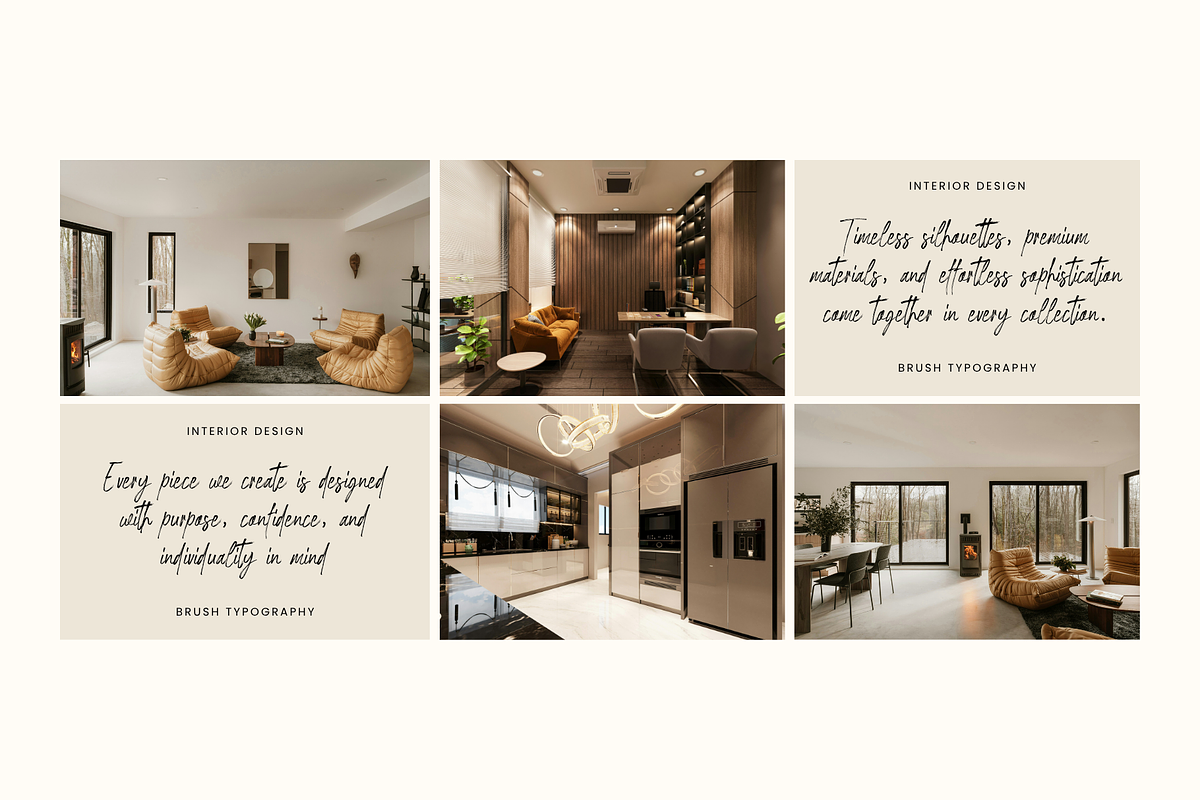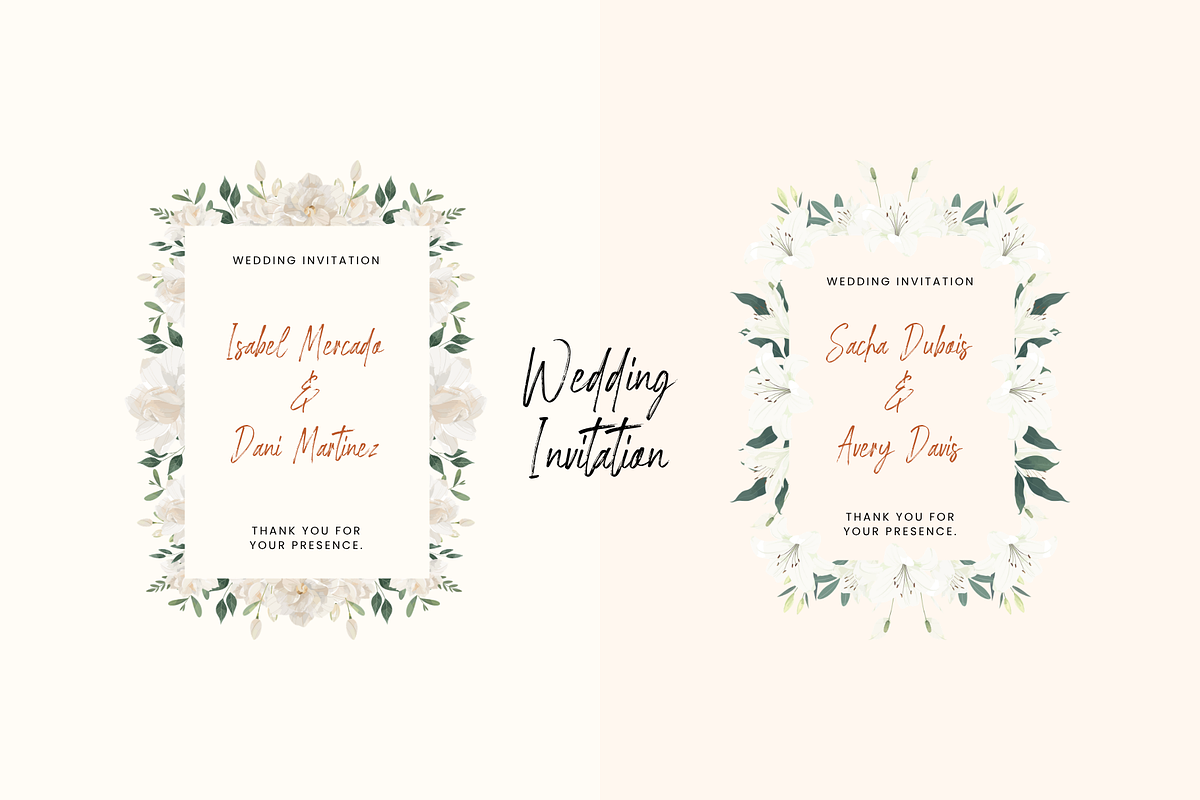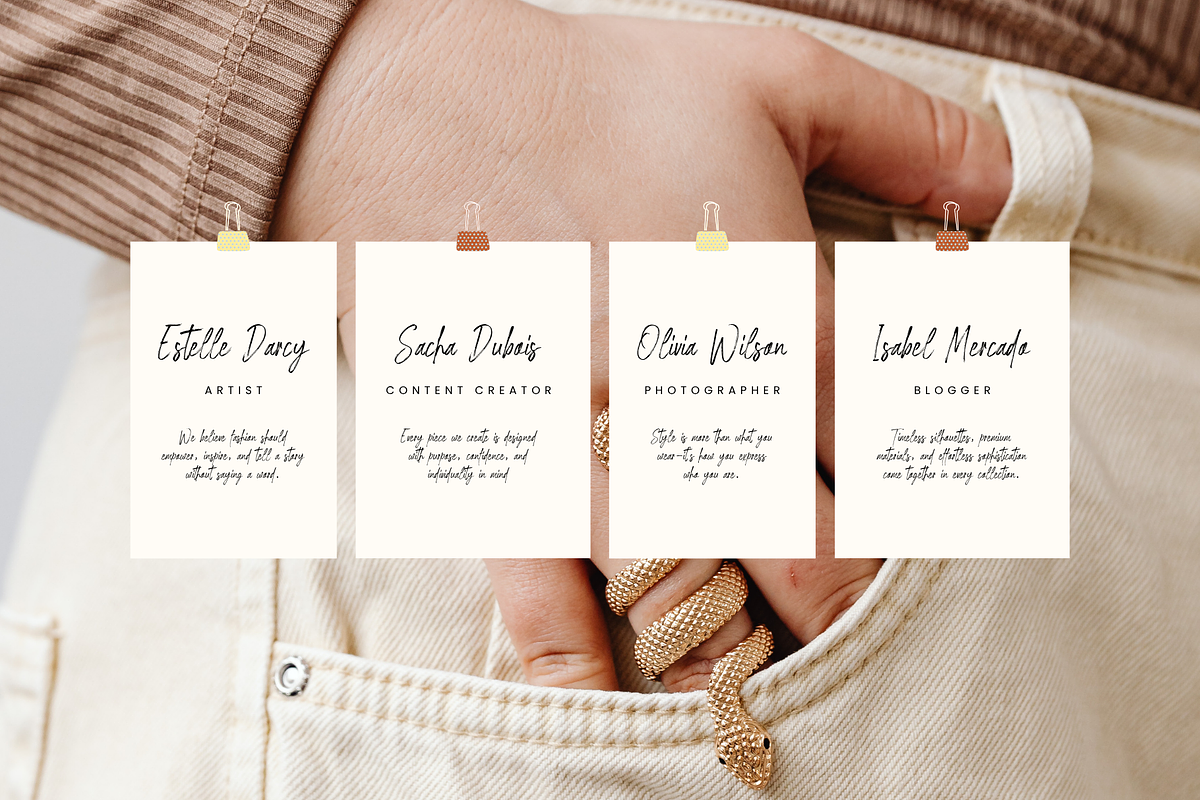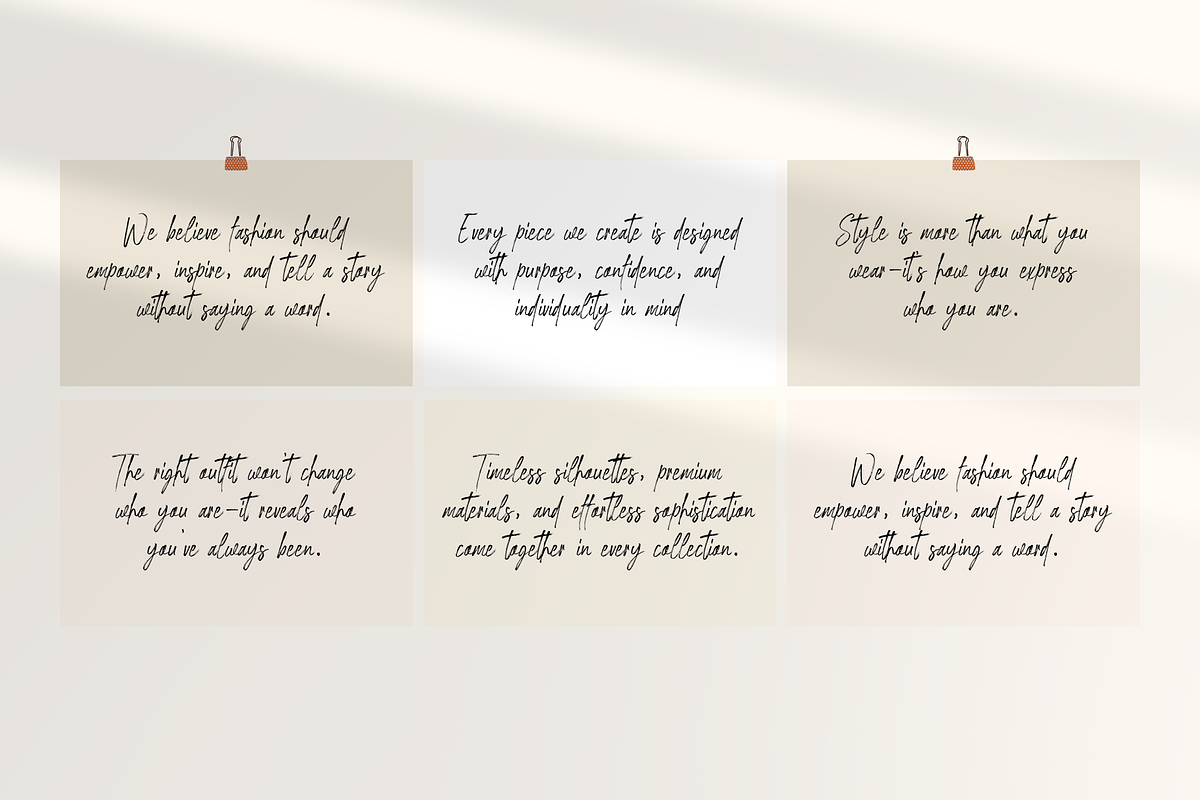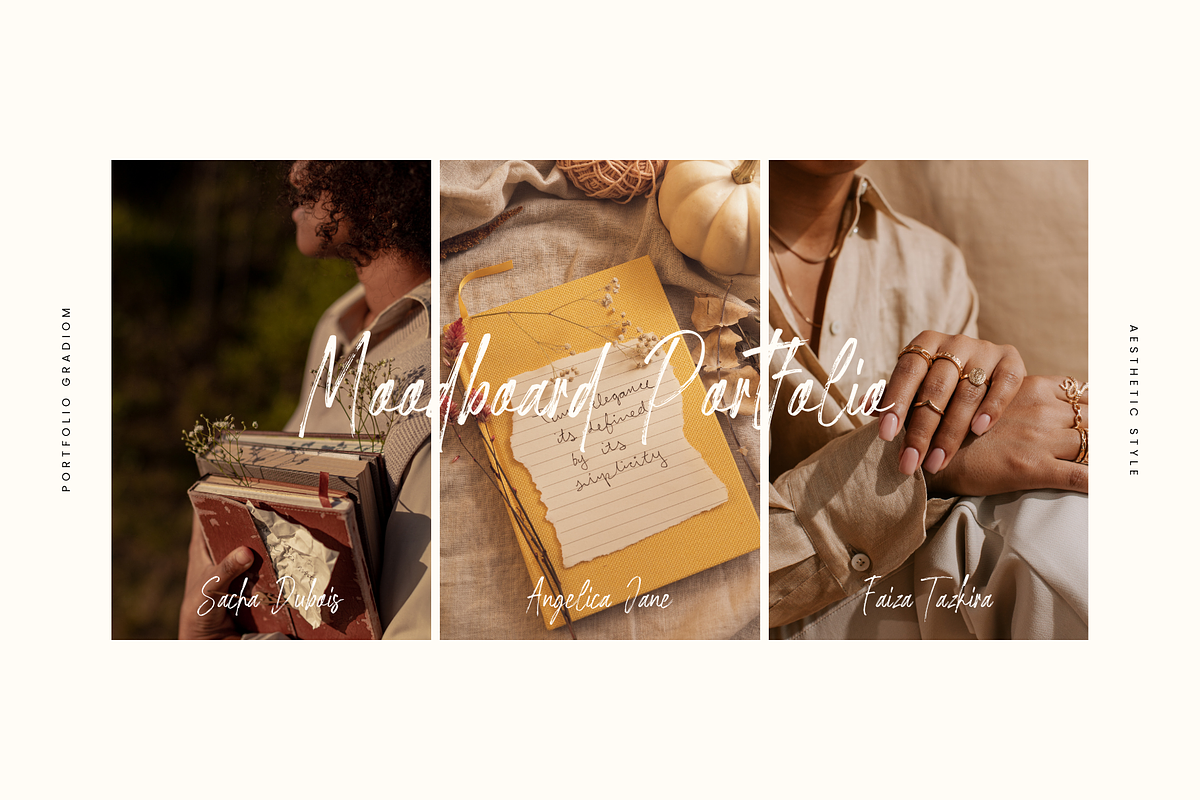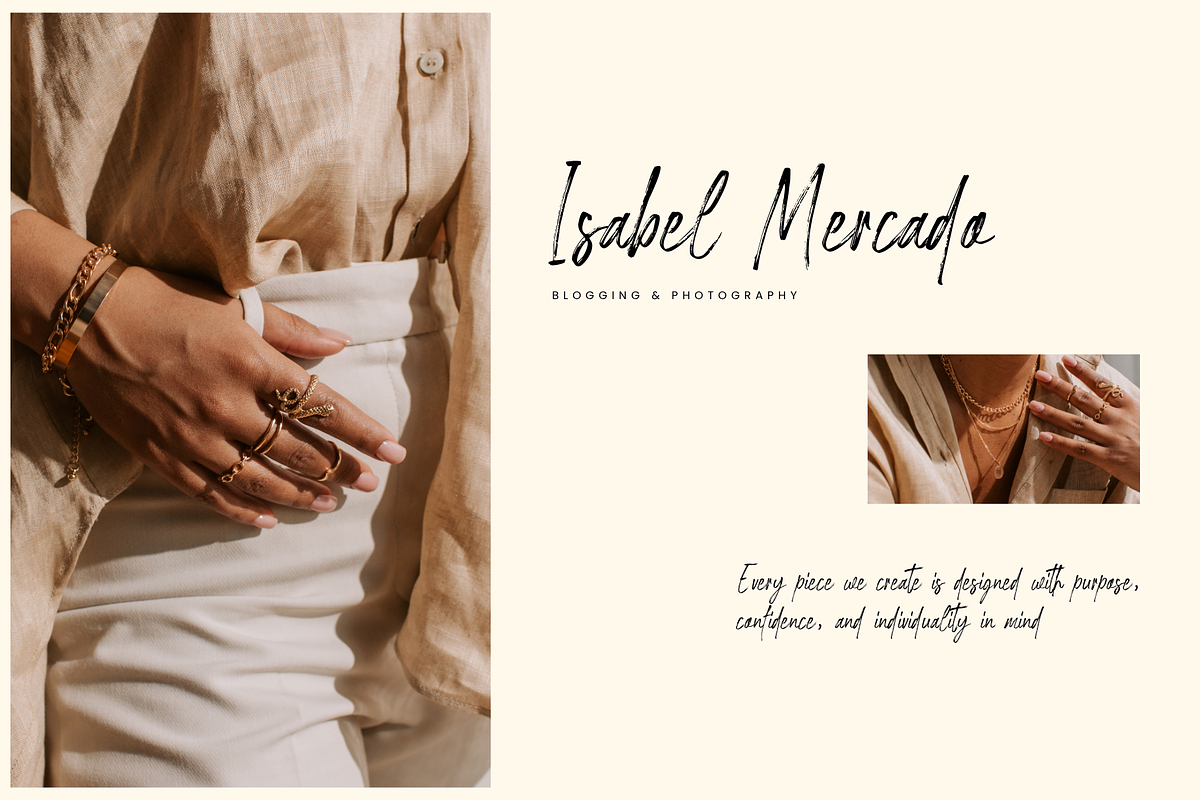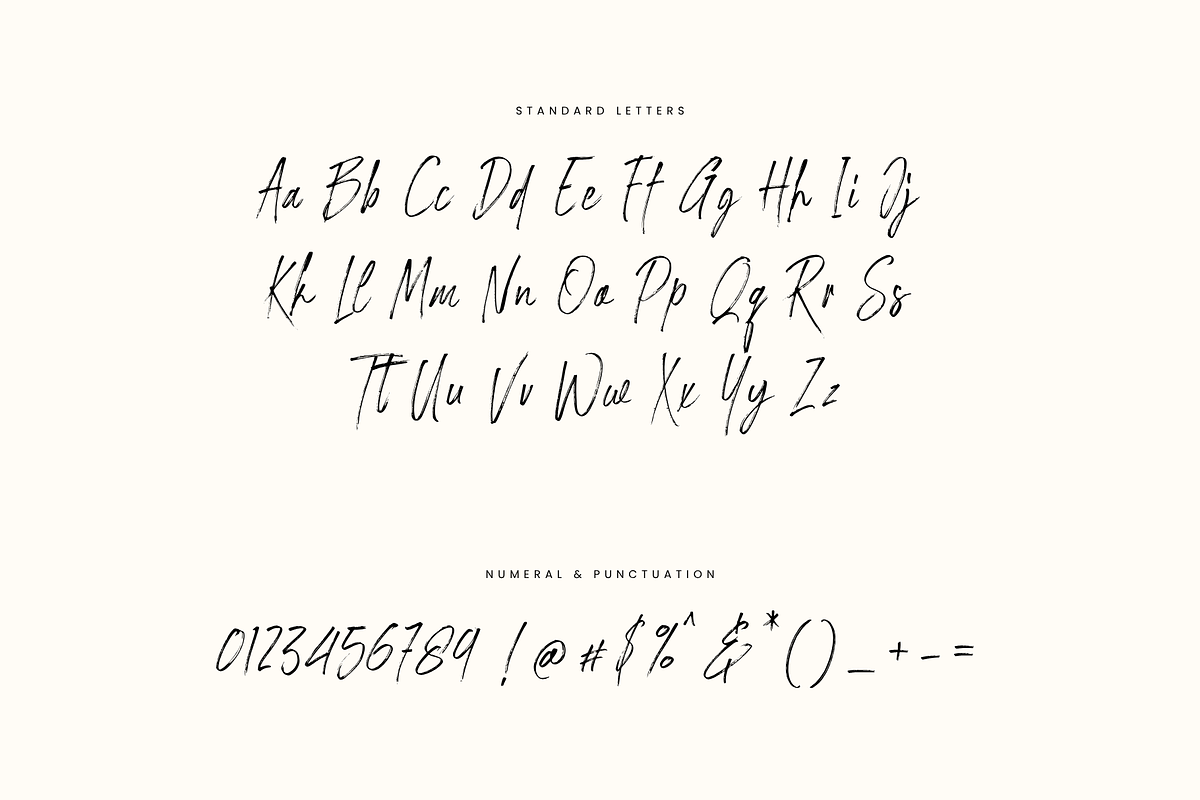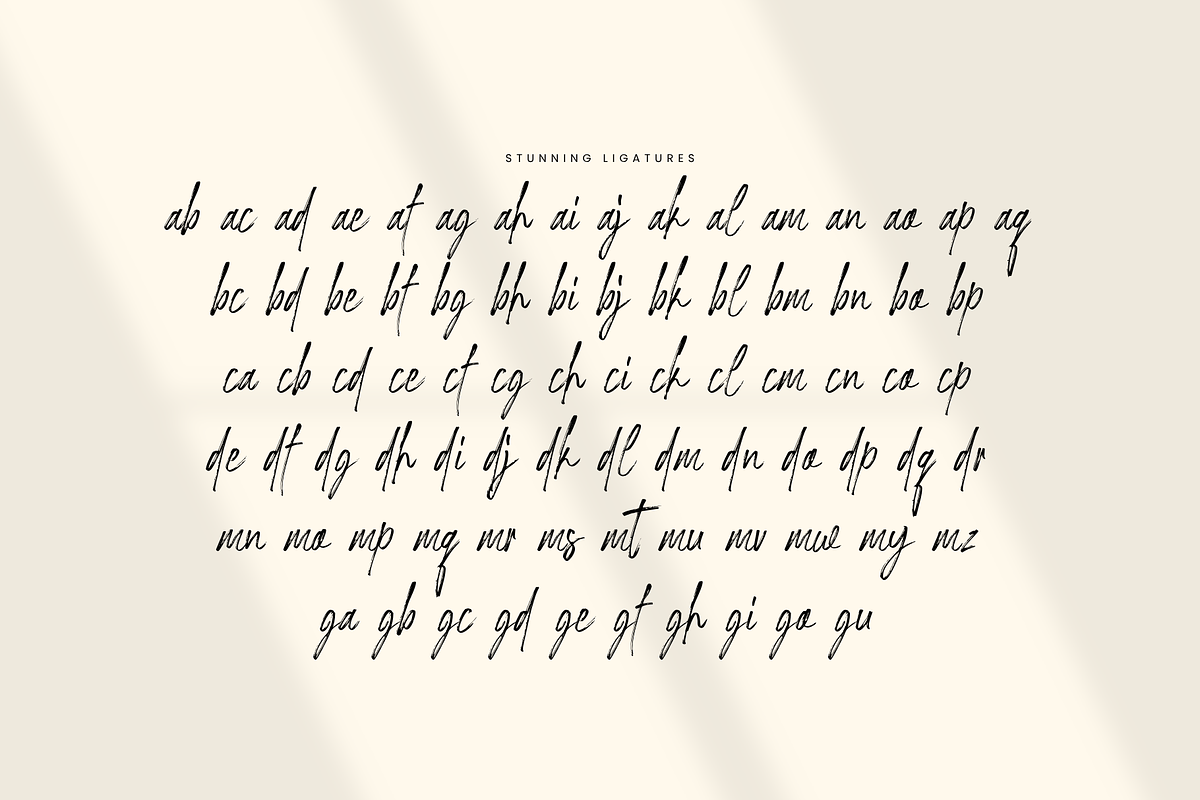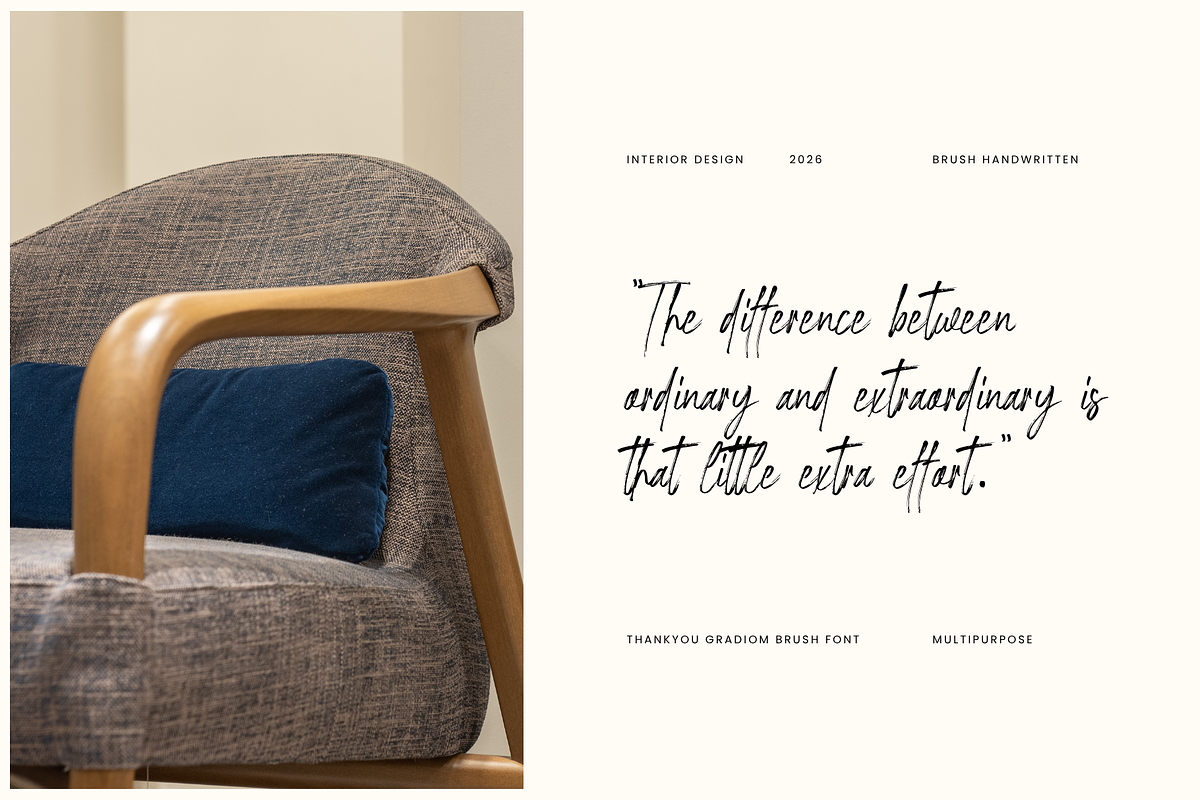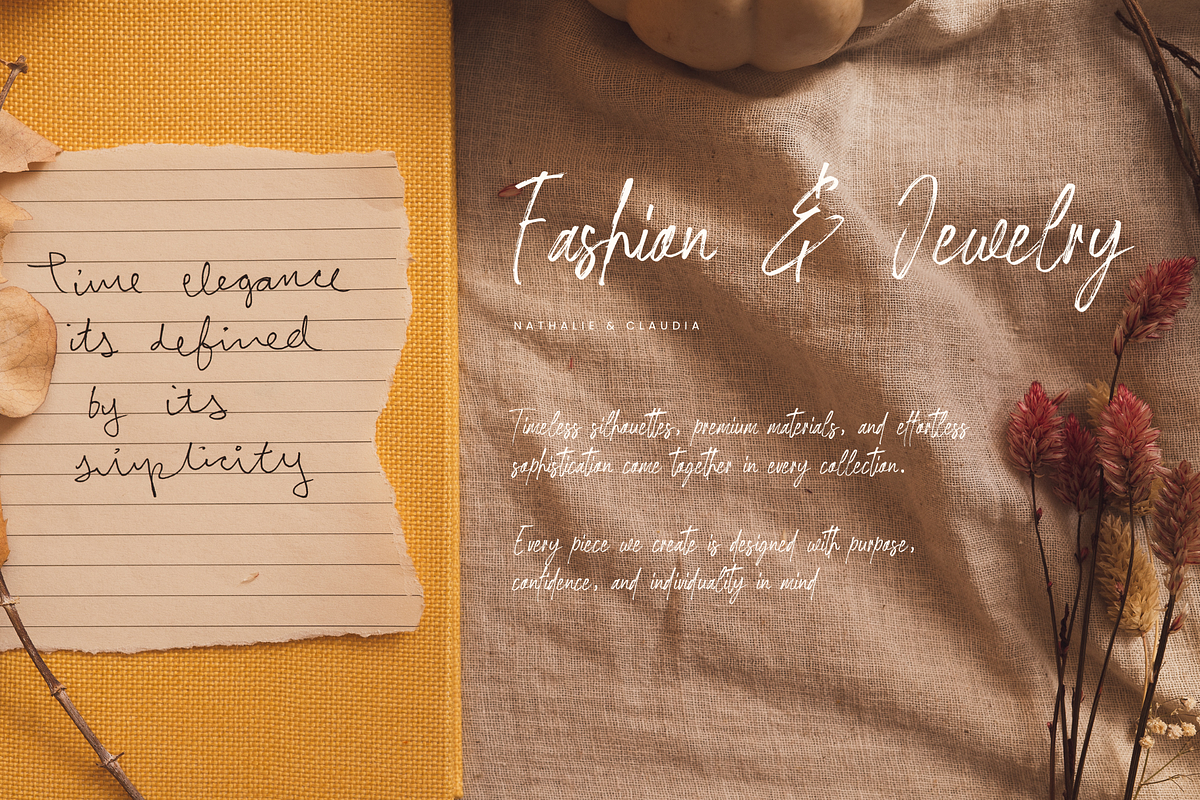
Gardiom
Introducing: Gardiom – A Handwritten Expression of Emotion
Illuminate your design with the strokes of a brush marker font.
Meet Gardiom, a handwritten font crafted with heartfelt precision and a deep love for organic lettering. Every stroke tells a story—fluid, personal, and full of soul. Designed to emulate the effortless charm of natural handwriting, Gardiom is perfect for creatives who crave authenticity in every design.
Uppercase & lowercase letters
Elegant ligatures
Whether you're creating wedding invitations, branding for artisan products, Instagram quotes, magazine layouts, greeting cards, or dreamy packaging—Gardiom brings a touch of sincerity to every project.